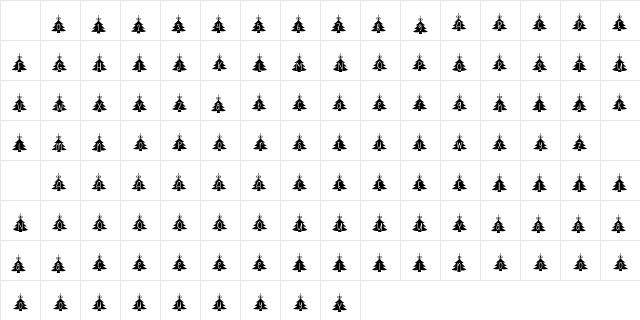
Complete Hanging Christmas Tr Regular glyph index. Displaying only characters natively supported by Hanging Christmas Tr Regular font.
Hanging Christmas Tr is a composed and adaptable typeface that performs quietly and consistently across a wide range of design contexts.